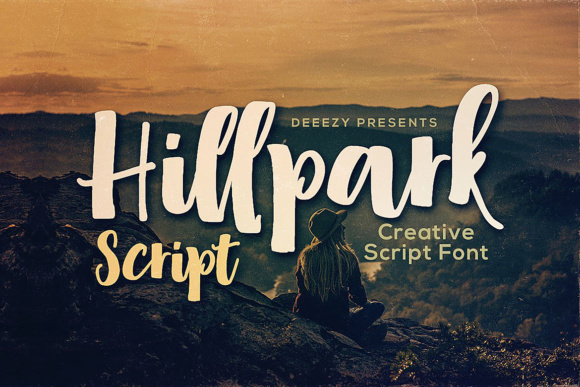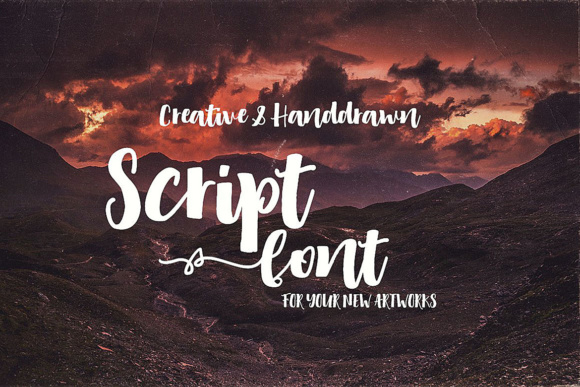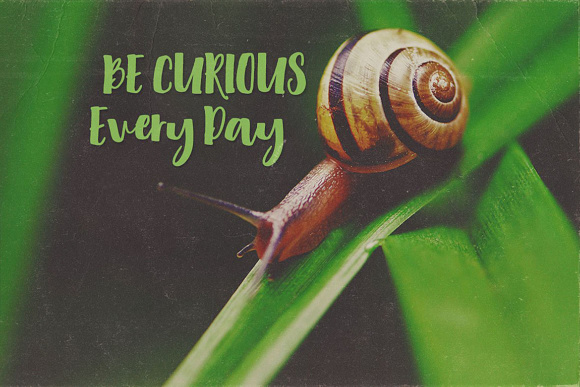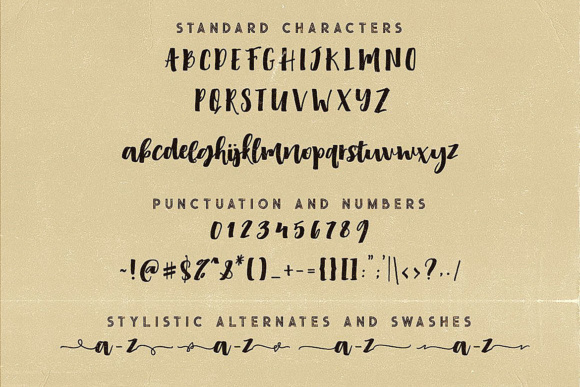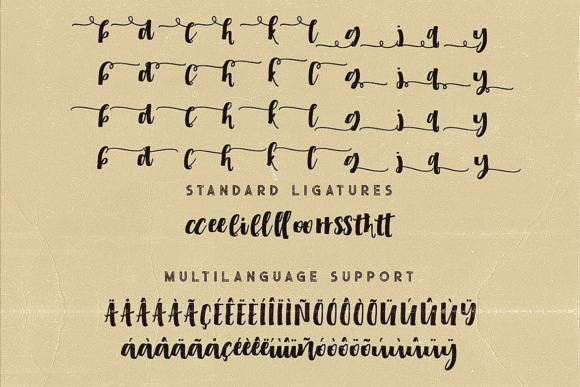
HomeScript FontsHillpark Script Font Script Fonts Hillpark Script Font FacebookXPinterestWhatsApp Hillpark Script Font Poster 2 Hillpark Script Font Poster 3 Hillpark Script Font Poster 4 Hillpark Script Font Poster 5 Hillpark Script Font Poster 6 Hillpark Script Font Poster 7 About Hillpark Script Font The Hillpark is a bold and handwritten style script for all your new projects. DOWNLOAD ON CREATIVE FABRICAThis font is sold and delivered by Creative Fabrica. Font Canyon may earn a commission if you buy through this link. People also explored Send My Love Font Handy Font Christmas Musical Font Melanista Font Veganzone Armstrong Duo Font Alexandra Font Anehik Font Love Today Font Baby Bottle Font 410 0 TagsHillpark Script Font Previous articleKattelyna Script FontNext articleBasston Script Font LEAVE A REPLY Cancel reply Comment: Please enter your comment! Name:* Please enter your name here Email:* You have entered an incorrect email address! Please enter your email address here Website: Save my name, email, and website in this browser for the next time I comment. Personal Use Free Unsteady Overseer Personal Use Free Read more about this font Propaganda Personal Use Free Read more about this font Good Mood Personal Use Free Read more about this font Rocketto Personal Use Free Read more about this font BLOG How to Cut Any Font on Cricut: Convert a Font to SVG (Free) Turn any font into a clean SVG so it cuts crisp on Cricut - a quick 3-step workflow using a free font-to-SVG tool. Exploring Font Trends Best Fonts for YouTube Videos: Make Your Thumbnails Stand Out Transform Your Website: Elevate Your Typography with 7 Best Web Font Generators